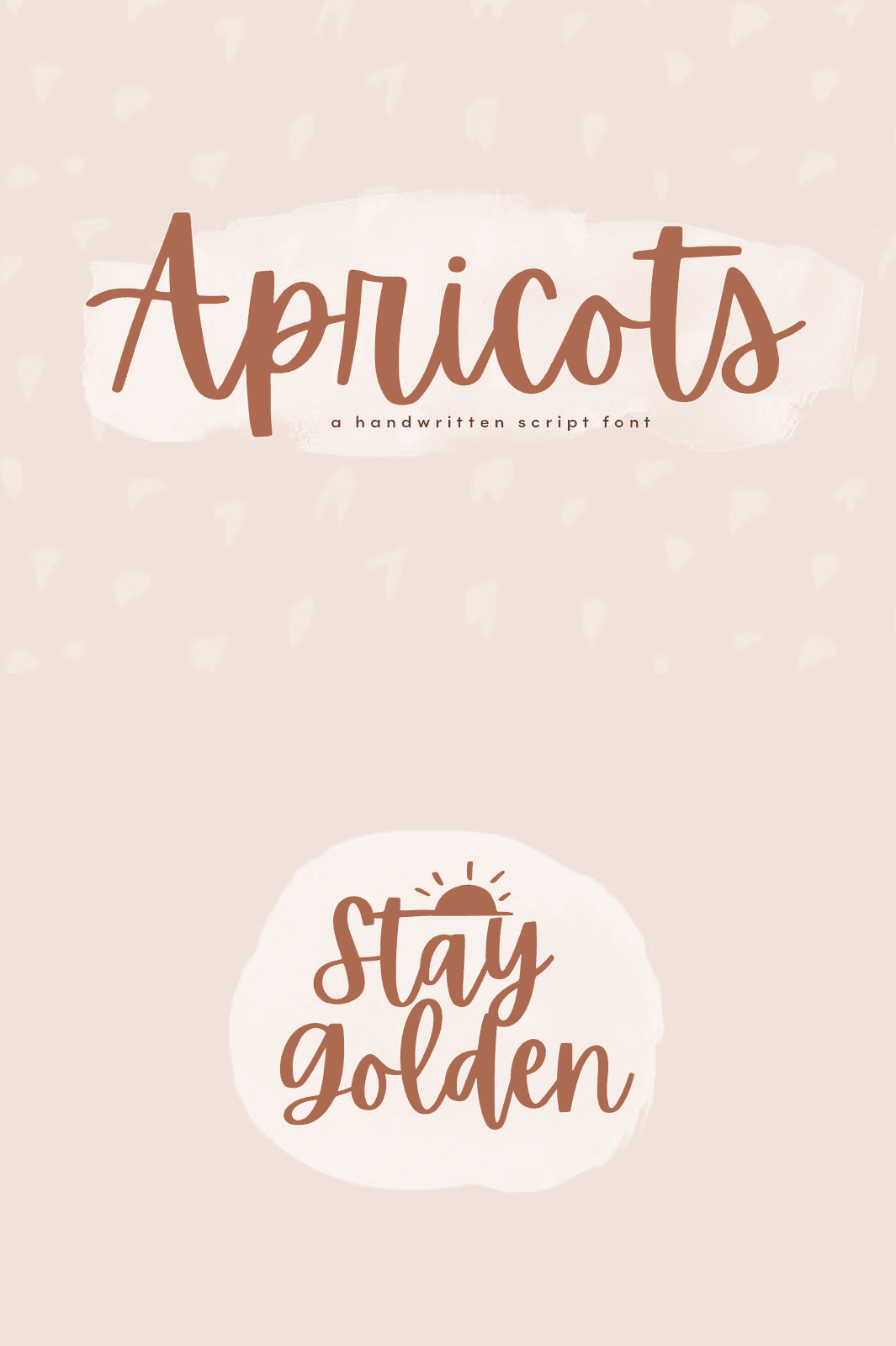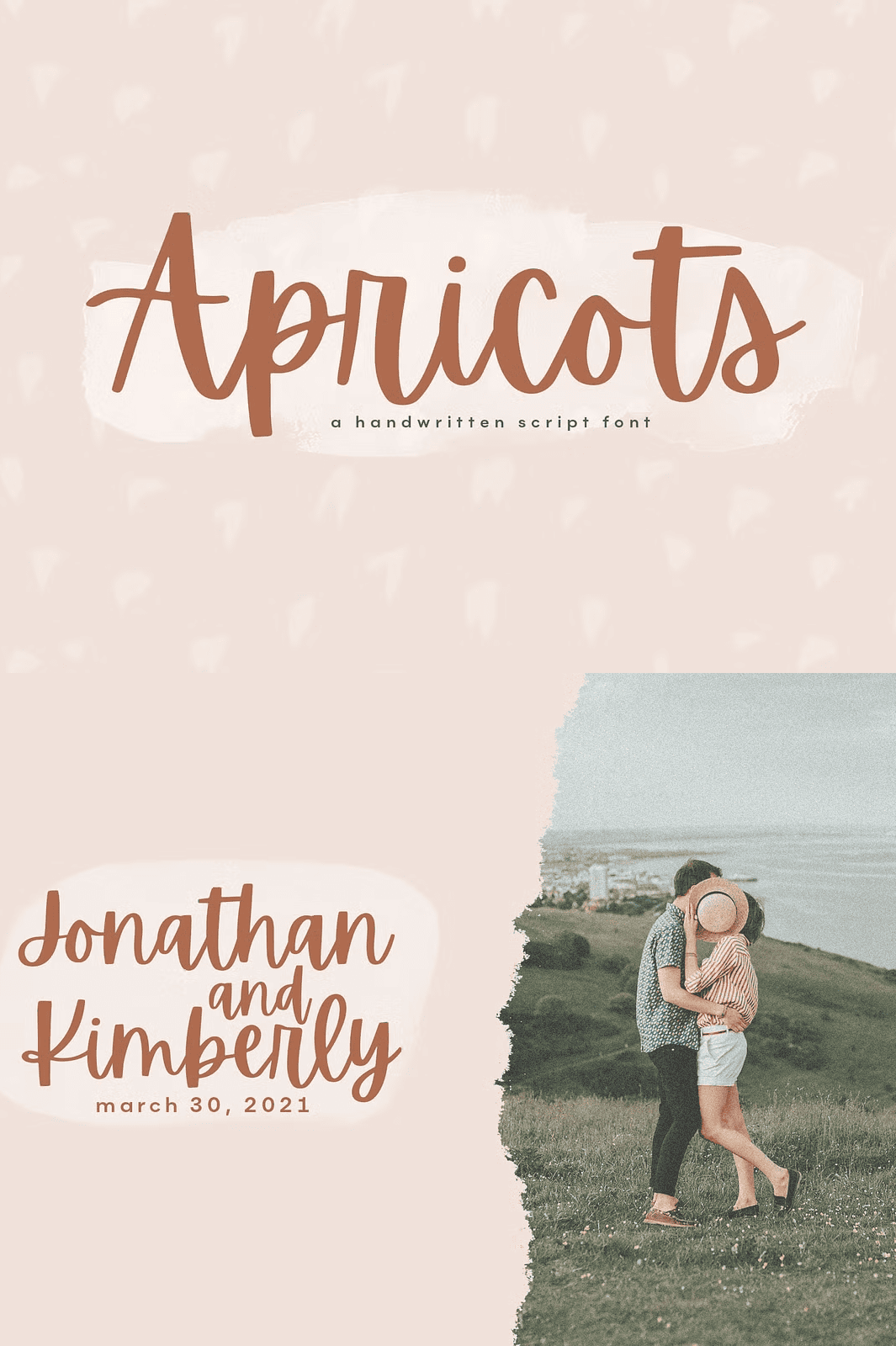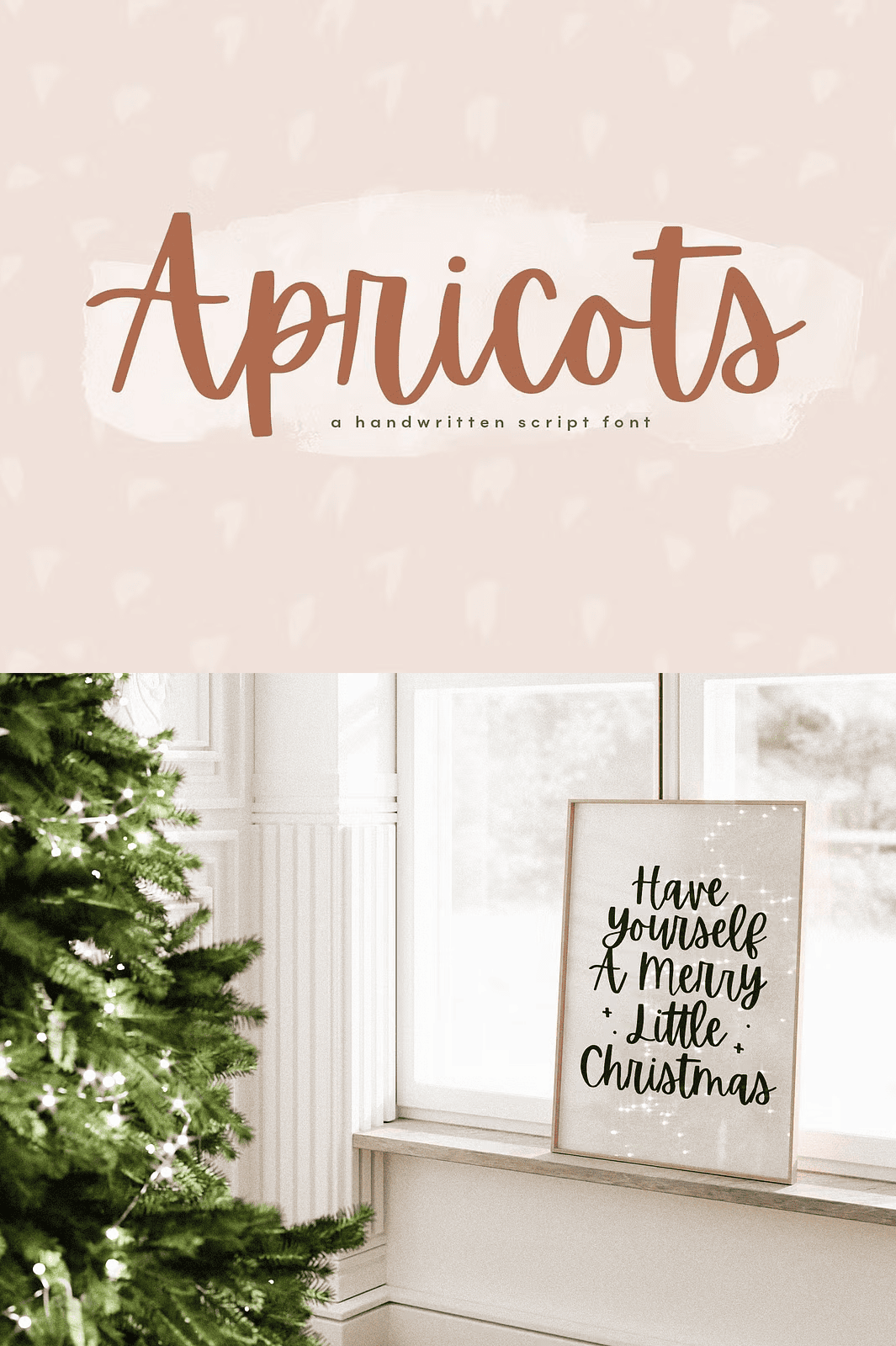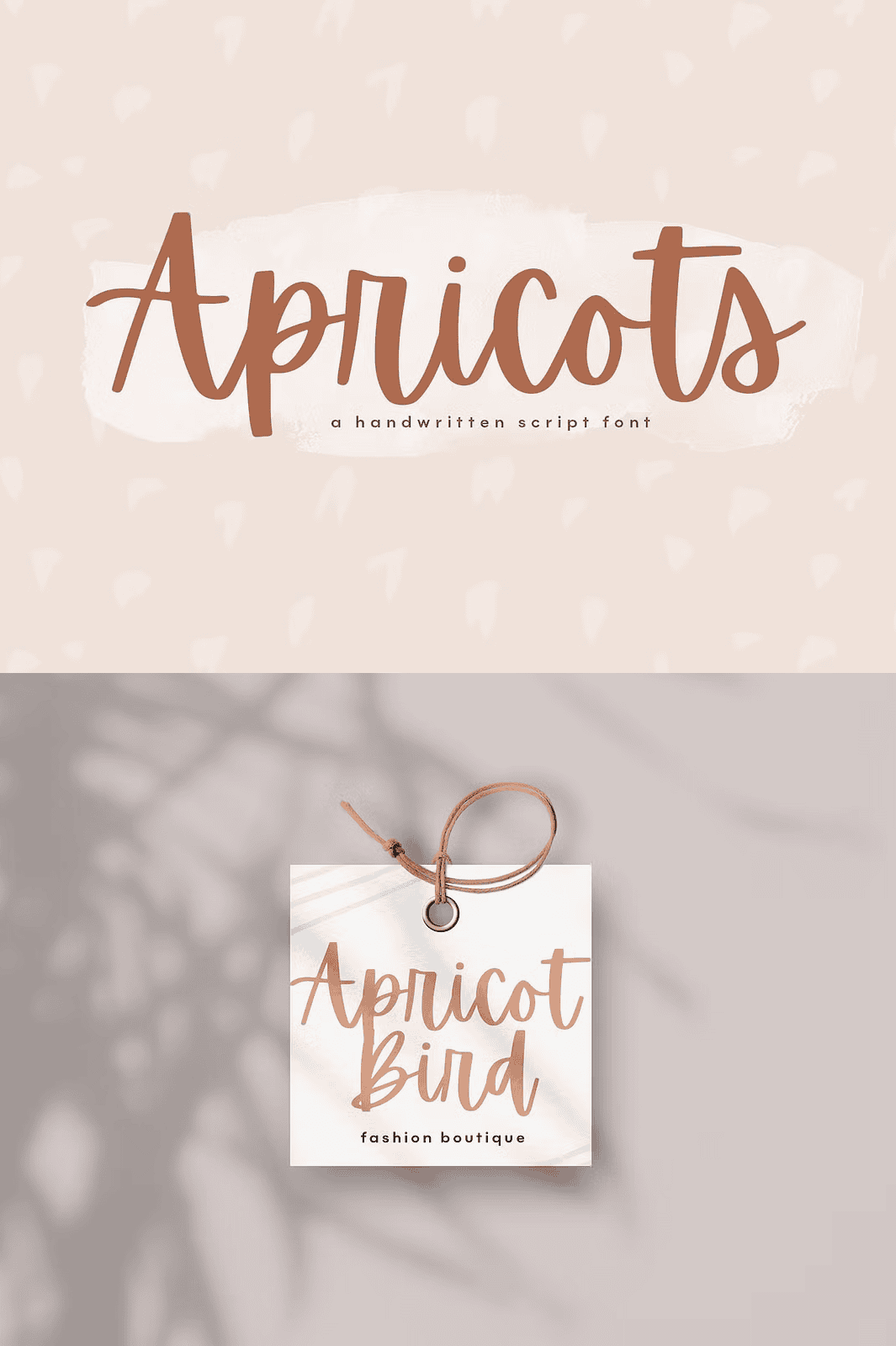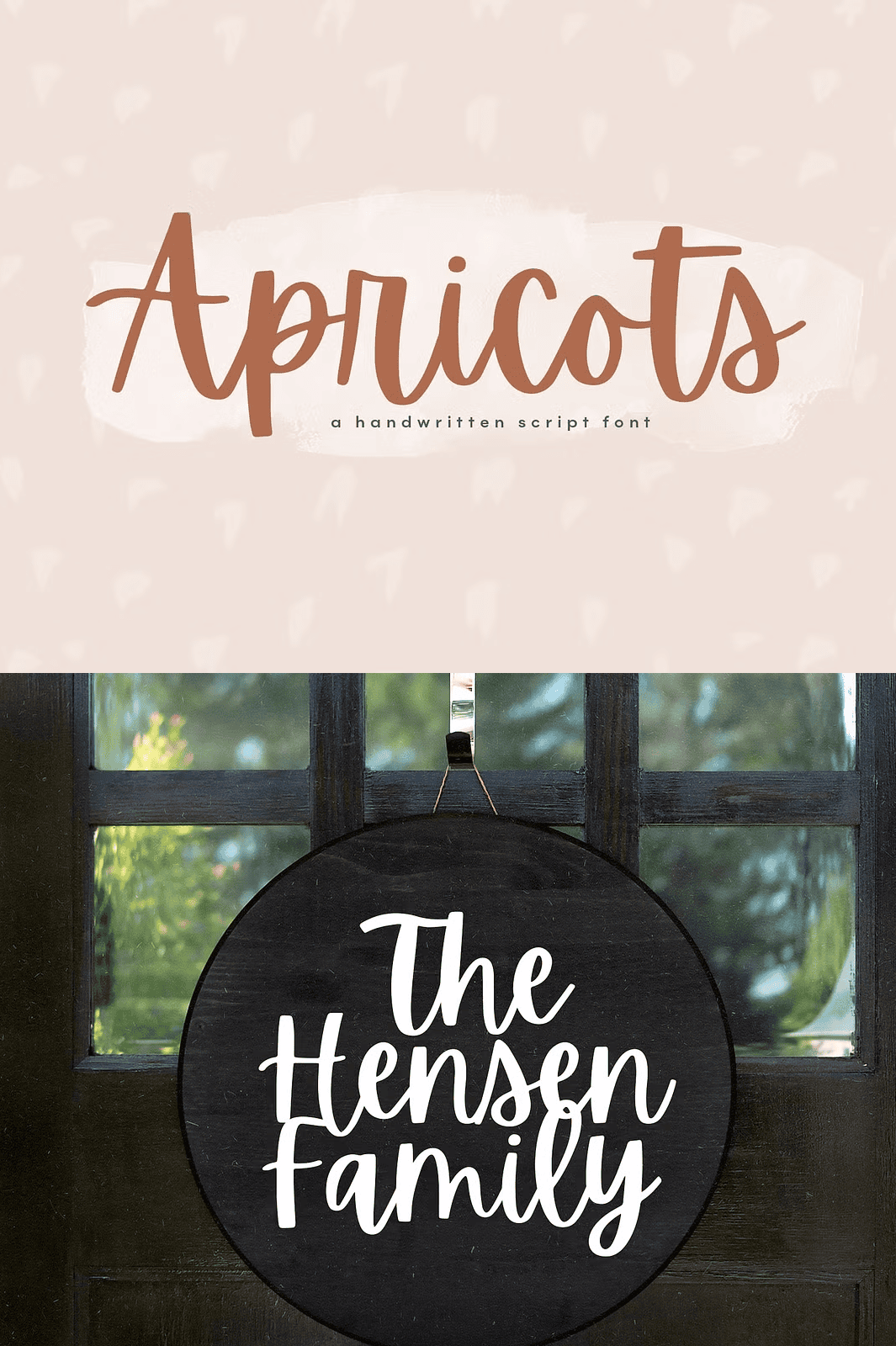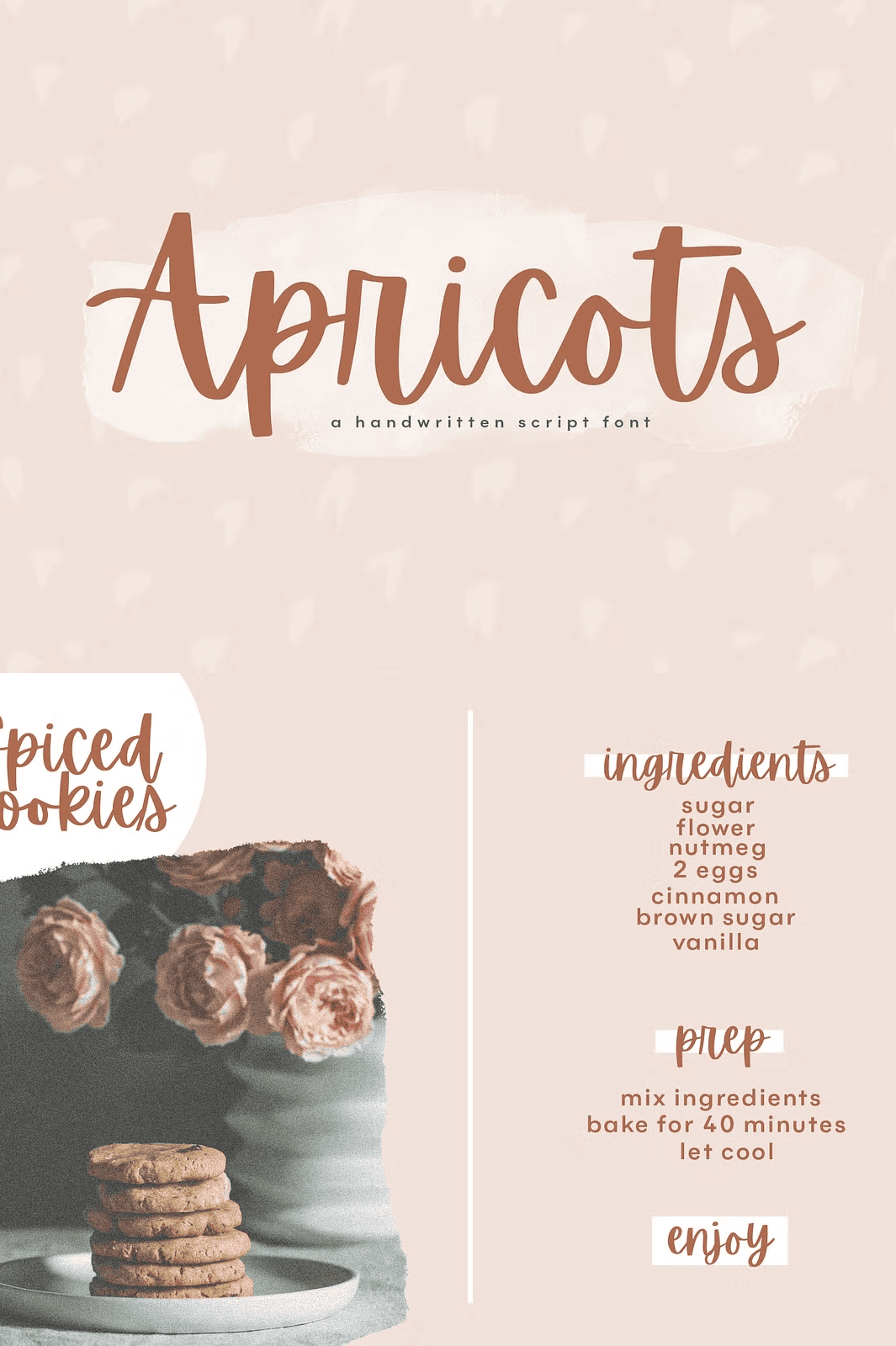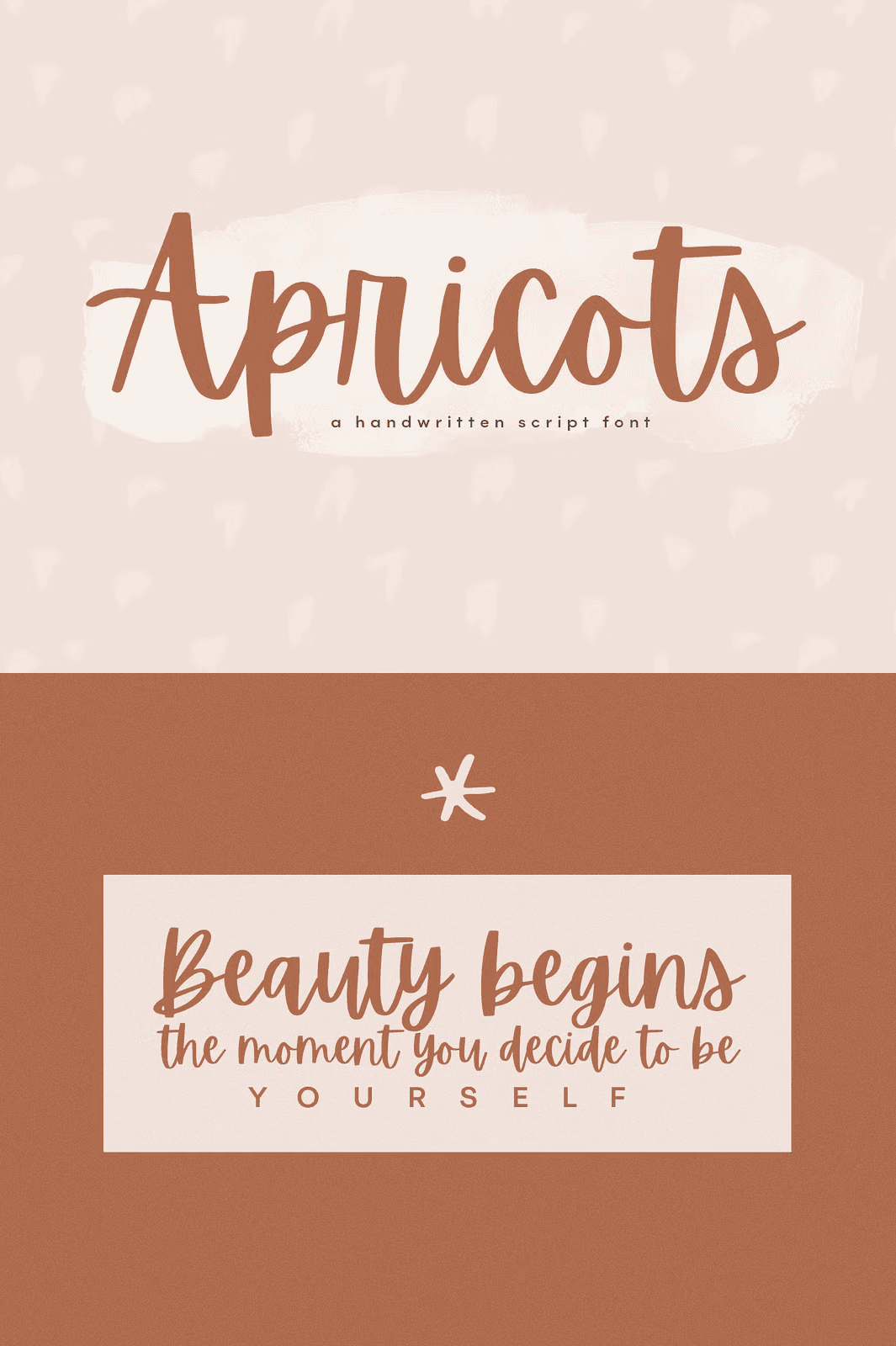
Apricots | A Handwritten Script Font
Unleash Fun, Modern Energy with Handcrafted Typography
Meet **Apricots**, a bold, energetic handwritten script font designed for creative minds who crave modern flair and expressive personality. With its lively strokes, confident slant, and dynamic rhythm, Apricots brings a fresh, fun vibe to every design ideal for branding, social media graphics, blog headers, wedding invites, fashion labels, and digital content. This isn’t just a font; it’s a creative catalyst that energizes your visual storytelling.
Whether you’re crafting a vibrant Instagram post, designing a sleek logo, or building a memorable brand identity, Apricots delivers instant personality with every character. Its modern approach blends hand-lettered charm with digital precision, giving you the best of both worlds—authentic touch and professional polish.
Powerful Features for Every Creative Need
Apricots is packed with high-quality features engineered for real-world design applications:
– **Comprehensive Character Set**: Includes lowercase, uppercase, numbers, punctuation, and over 200+ accent characters for global language support (including French, Spanish, German, Portuguese, and more).
– **Ligatures & Alternates**: Smooth transitions between letters with optional ligatures and stylistic alternates—enhance flow and reduce repetition.
– **OpenType Features**: Access advanced typographic controls via your software’s character panel for deeper customization.
These tools empower designers to create unique, publication-ready visuals with minimal effort and maximum impact.
Create with Confidence Across All Platforms
No matter your workflow, Apricots fits perfectly:
– Design bold social media visuals with punchy headlines and expressive text.
– Build standout logos and brand identities that capture attention.
– Elevate wedding invitations, party flyers, and event announcements with personal charm.
– Use in digital projects, websites, and email campaigns where personality matters.
With full multilingual support, Apricots is ready for global reach ideal for international branding and multilingual content.